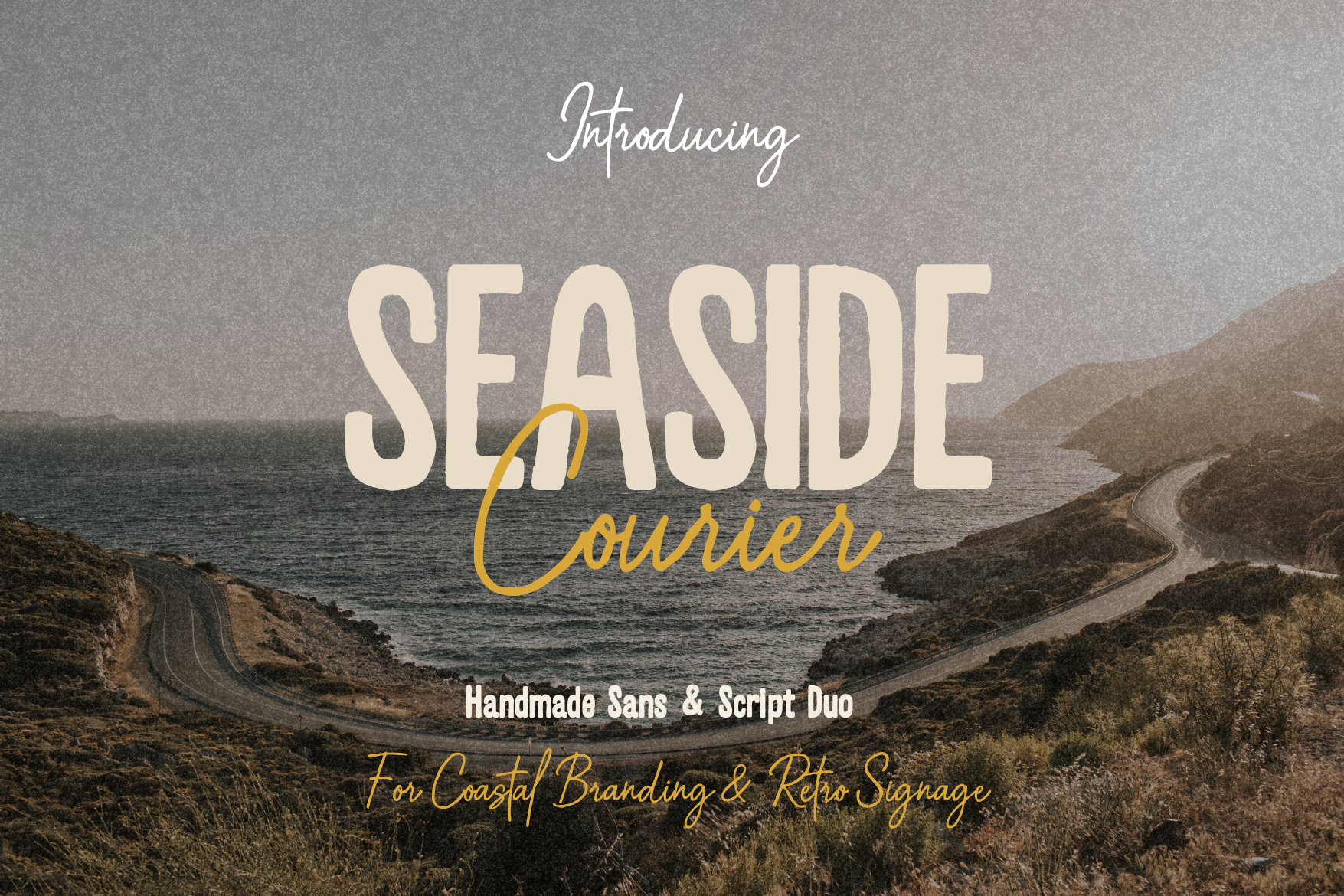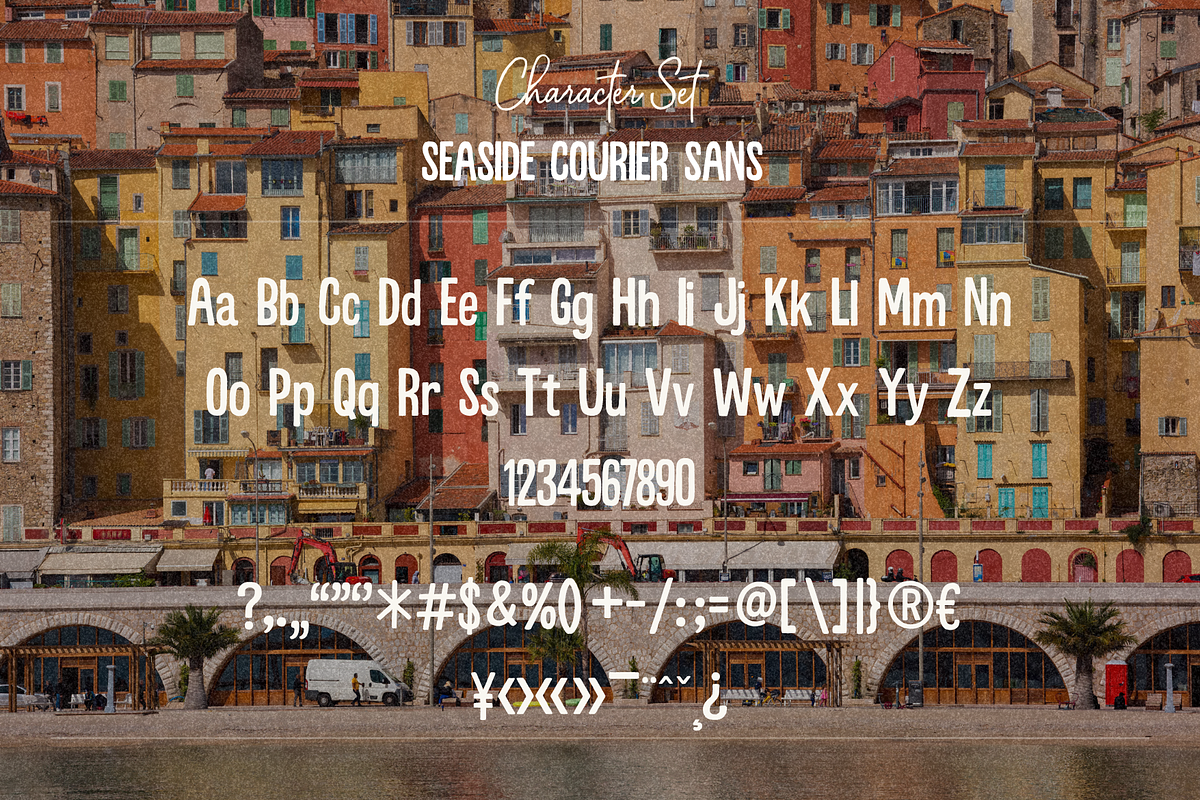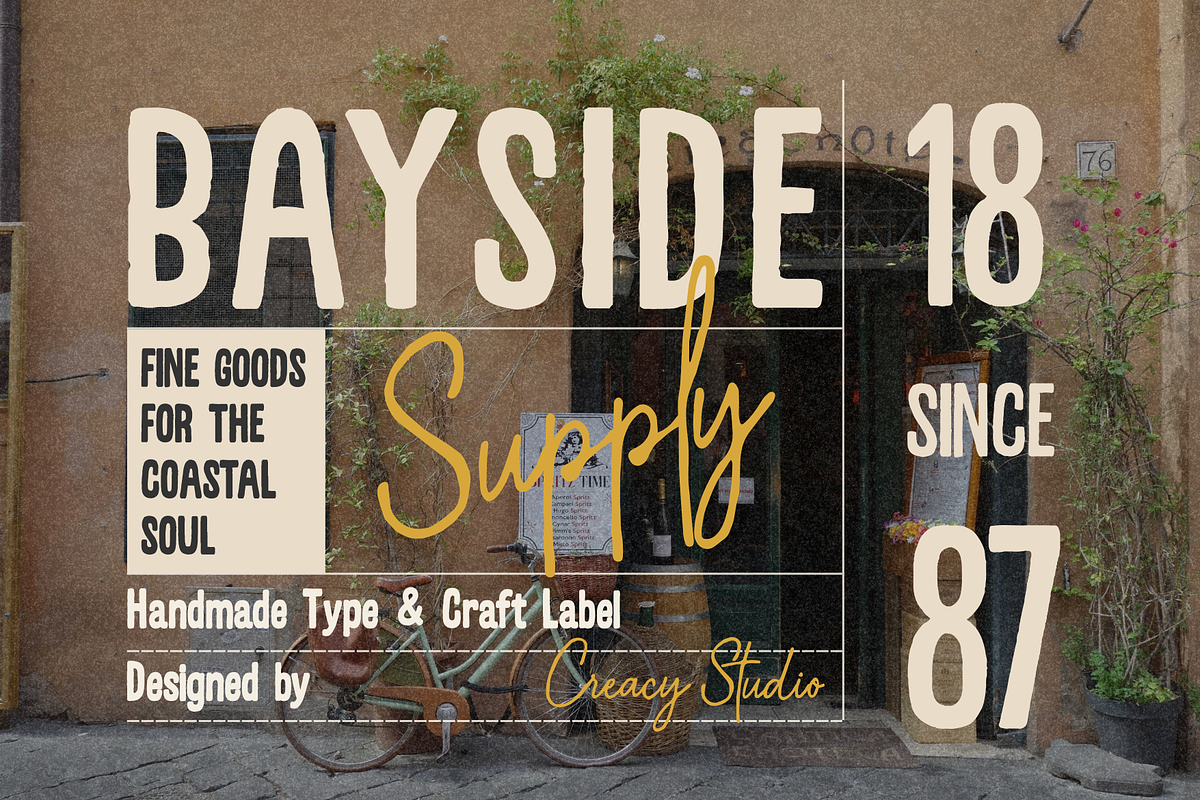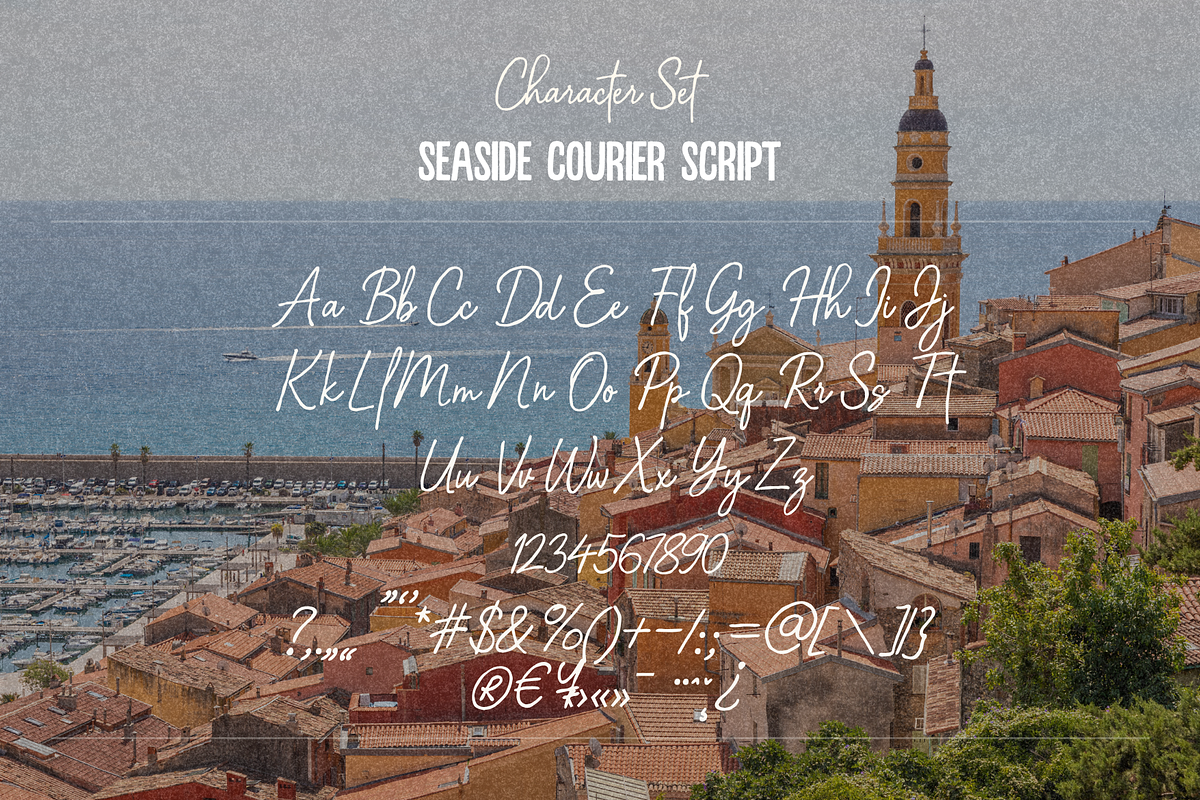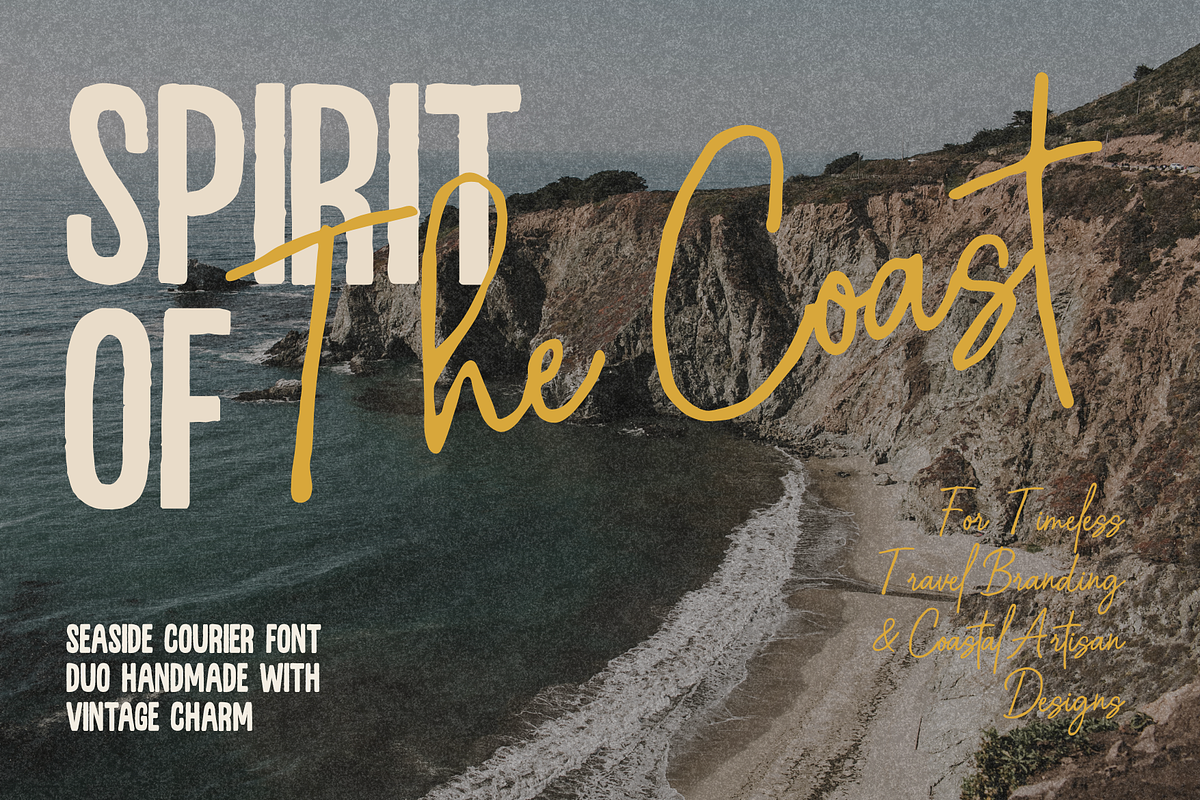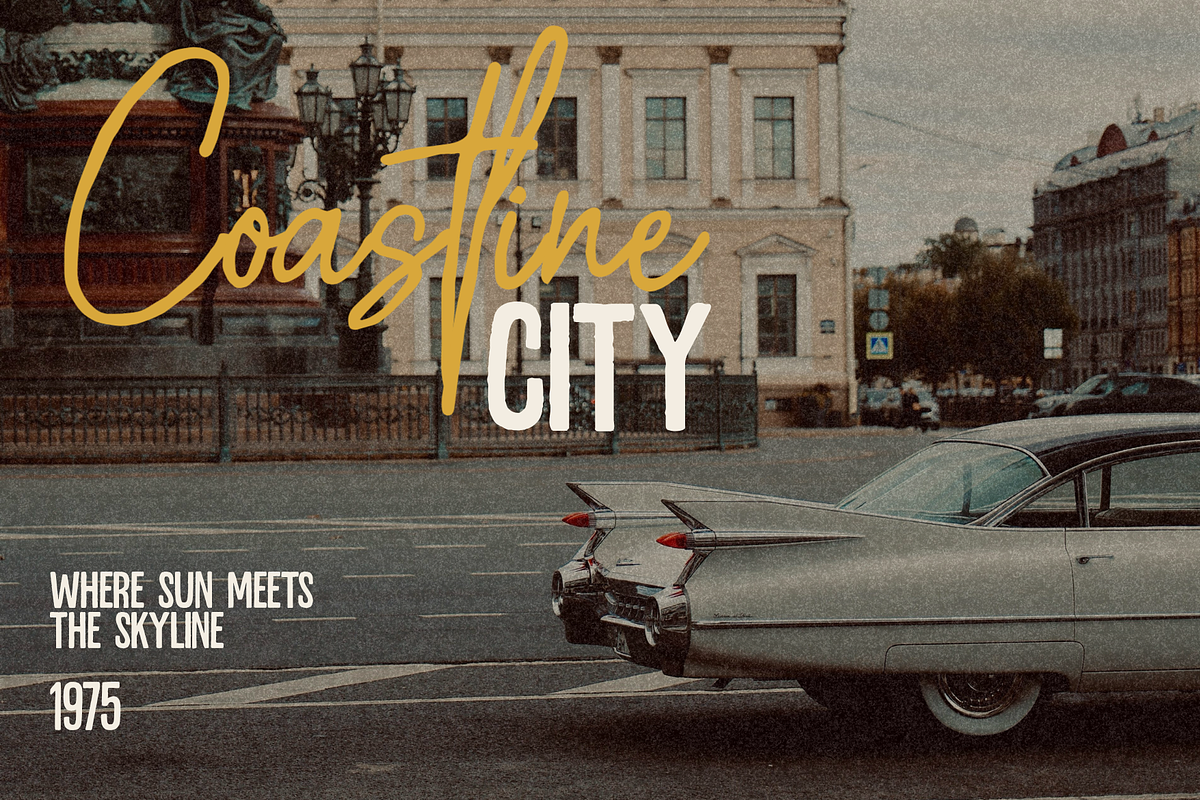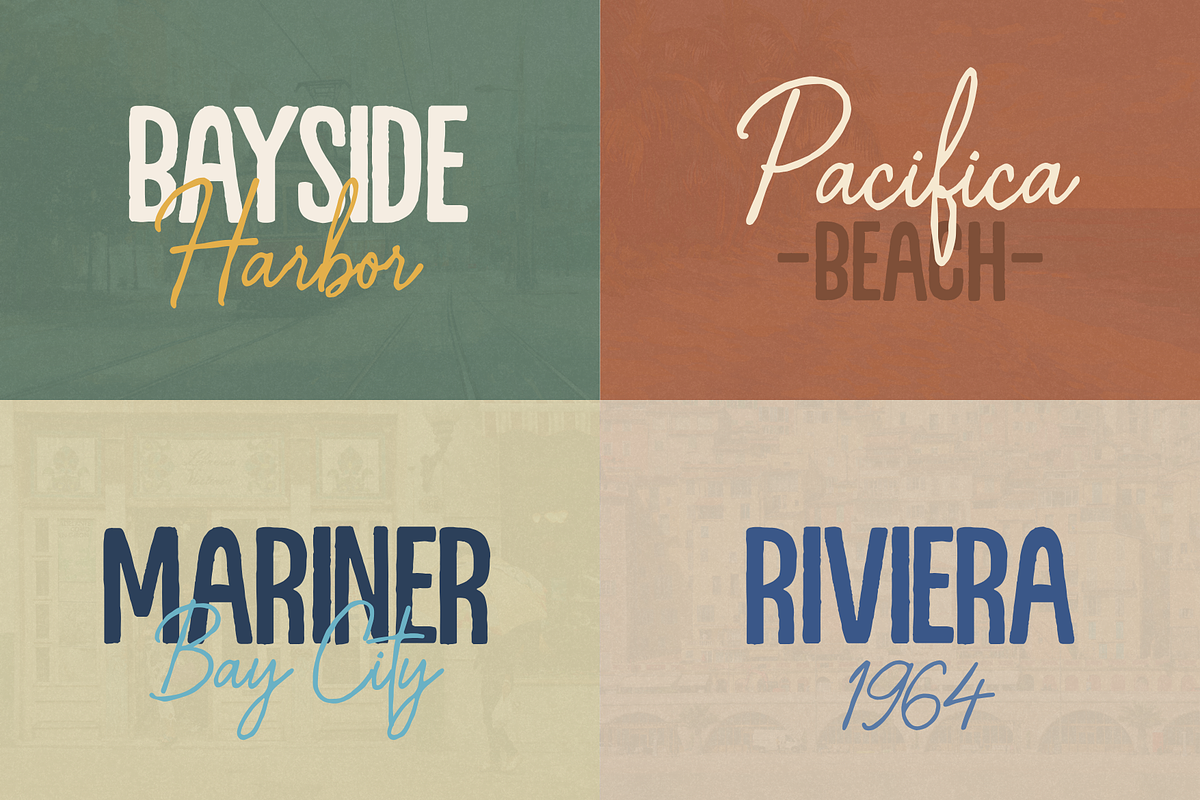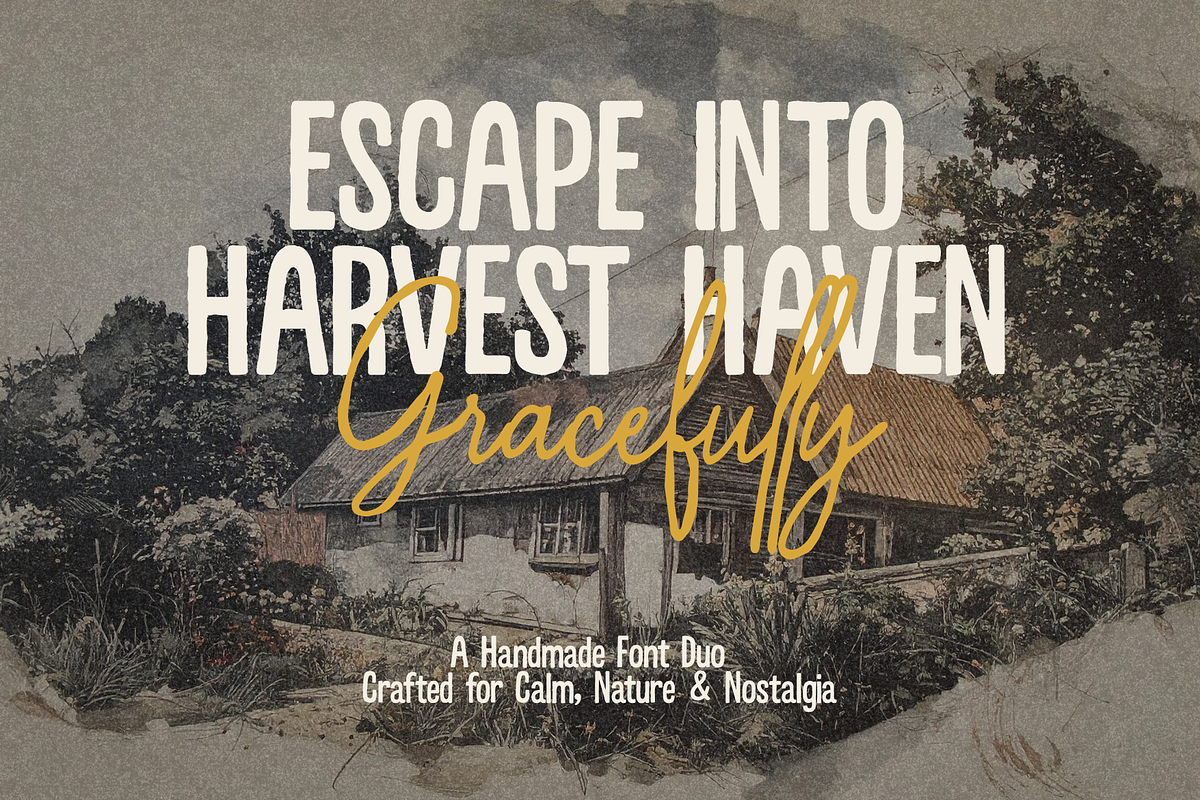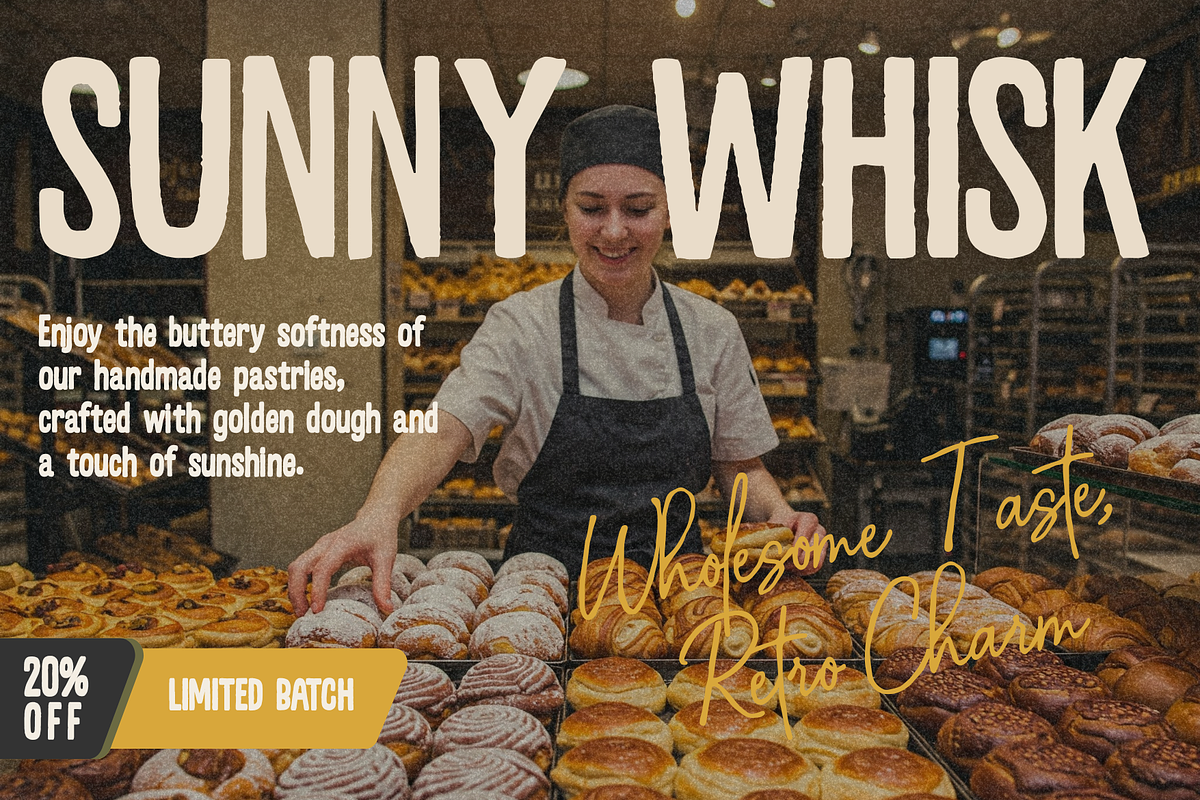
Seaside Courier – Font Duo
Seaside Courier – Handmade Sans & Script Duo
Seaside Courier is a handmade font duo inspired by the charm of coastal towns, sun-washed signage, and nostalgic artisan markets. It combines a bold handcrafted sans with a warm cursive script, capturing the effortless beauty of the seaside and the golden glow of retro summers.
Perfect for coastal branding, bakery packaging, travel posters, cafés, and vintage-inspired products, Seaside Courier brings a handcrafted soul and timeless warmth to every design it touches.
Imagine your next logo or label crafted with the relaxed charm of a harbor café, or a nostalgic postcard bathed in sunset hues — that’s the spirit of Seaside Courier.
- Uppercase & Lowercase Letters
- Coastal Branding & Artisan Logos
- Vintage Travel Posters & Café Signage
- Bakery & Craft Packaging
- Lifestyle Products & Social Media Designs
Font Pairing Inspiration
Pair the Sans for titles or display use with the Script for taglines and signature accents — creating a natural handmade duo that feels personal, timeless, and full of retro character.